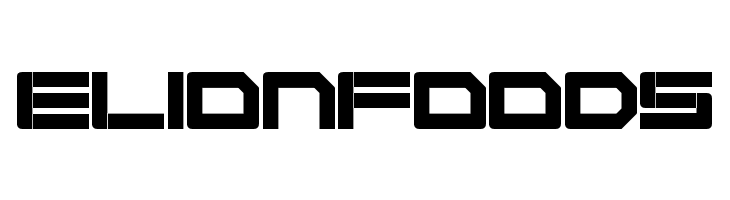
( Font by Inaki Marquinez )
A bold, classic serif font with strong, elegant letterforms.
A modern, oblique, and condensed font with sharp, angular edges.
( Font by Pedro Munoz Pastor - fodkito.deviantart.com )
A geometric, angular font inspired by ancient Greek inscriptions.
A futuristic, geometric font with a blocky, modular design.
A sleek, modern, and condensed font with a futuristic aesthetic.
A futuristic, geometric font with clean lines and expanded spacing.
A bold, geometric font with a futuristic, industrial style.
A bold, condensed italic font with a futuristic and dynamic style.
A futuristic, geometric font with bold, angular lines and a 3D effect.
A bold, blocky font with a digital, pixelated style.
A bold, angular, and futuristic italic font with a mechanical aesthetic.
A futuristic, italicized font with expanded, angular letterforms.
A bold, futuristic font with a geometric and digital aesthetic.
A futuristic, angular font with bold, geometric characters.
( Fonts by Press Gang Studios - Andeh Pinkard - www.pressgang-studios.com )
A bold, geometric font with a futuristic and assertive style.
A bold, angular font with a shadow effect and a futuristic, geometric style.
A bold, geometric outline font with a futuristic and technical style.
A bold, italicized font with playful, rounded characters and dynamic slant.
An italic outline font with a dynamic and uniform design.
A gothic, medieval-inspired font with sharp, angular strokes and intricate details.
( Fonts by Jens R. Ziehn - www.filmhimmel.com )
A bold, angular font with a futuristic and aggressive style.
( Fonts by Peter Rempel - www.prfonts.com )
A medieval-inspired font with sharp, angular lines and decorative serifs.
A bold, italic font with a modern and clean design.
A bold, rounded, and modern font with a playful aesthetic.
A modern, geometric sans-serif font with a clean and balanced design.
A bold, modern sans-serif font with low contrast and normal spacing.
A modern, light sans-serif font with clean lines and rounded edges.
( Fonts by Dustin Norlander - www.cheapskatefonts.com )
A modern, italic font with clean lines and a dynamic appearance.
( Fonts by Salvo Nicolosi - ficod.deviantart.com )
A tall, narrow font with a modern and sleek design.